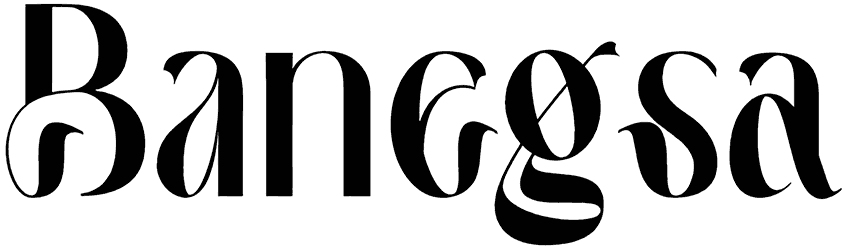
Banegsa Font
Why should you settle for using the previous modern fonts in your collection when you can try a new one like Banegsa? After all, this exquisite sans-serif font has a lot to offer to your work with its unique design of letters as well as the delicate strokes used in their structure.
This typography font gives you a great opportunity to nail your next logo designs for fancy boutiques and music shops, or other projects requiring signs for malls and libraries.